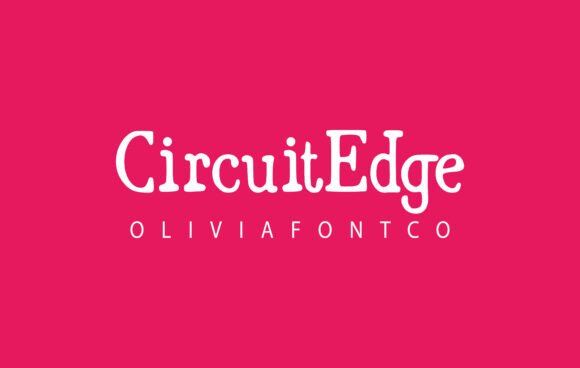
Circuitedge Font: Elevate Your Creative Projects with a Romantic Touch
In the world of typography, fonts play a crucial role in conveying the tone and personality of a brand or creative project. Among the numerous fonts available, Circuitedge font stands out as a unique and captivating choice. This authentic handwritten font, infused with a romantic touch, has been expertly designed to become a true favorite among designers and creative enthusiasts. In this article, we’ll explore the features and benefits of Circuitedge font, and how it can elevate your creative ideas to new heights.
What is Circuitedge Font?
Circuitedge font is a carefully crafted handwritten font that exudes a sense of romance and elegance. Its authentic and organic feel makes it perfect for a wide range of creative projects, from magazine headlines and social media graphics to branding, wedding invitations, and more. The font’s unique character and charm are sure to capture the attention of your audience and leave a lasting impression.
Key Features of Circuitedge Font
- Legibility: Circuitedge font is designed to be highly legible, making it suitable for both title and body text. Its clear and readable design ensures that your message is conveyed effectively, regardless of the medium.
- Romantic Touch: The font’s romantic touch adds a touch of elegance and sophistication to your creative projects. Its whimsical and organic feel makes it perfect for projects that require a personal and emotional connection.
- Versatility: Circuitedge font is incredibly versatile and can be used for a wide range of creative projects, including magazine headlines, social media graphics, branding, wedding invitations, cards, and more.
- Authentic Handwritten Feel: The font’s authentic handwritten feel gives it a unique and personal touch. Its imperfections and quirks make it feel more human and relatable.
Benefits of Using Circuitedge Font
Using Circuitedge font in your creative projects offers numerous benefits. Here are a few:
- Stand Out from the Crowd: Circuitedge font’s unique character and charm will help your creative projects stand out from the crowd. Its romantic touch and authentic handwritten feel make it a refreshing change from traditional fonts.
- Emotional Connection: The font’s romantic touch and whimsical feel help create an emotional connection with your audience. This is particularly useful for projects that require a personal and emotional connection, such as wedding invitations and cards.
- Time-Saving: Circuitedge font is highly legible and versatile, making it a time-saving solution for designers and creative enthusiasts. Its clear and readable design eliminates the need for extensive editing and formatting.
- Elevate Your Brand: Using Circuitedge font in your branding materials will help elevate your brand’s personality and tone. Its unique character and charm will help you establish a strong brand identity that resonates with your audience.
How to Use Circuitedge Font in Your Creative Projects
Using Circuitedge font in your creative projects is easy and straightforward. Here are a few tips to get you started:
- Pair it with Other Fonts: Circuitedge font pairs well with other fonts, especially those with a modern and clean design. Experiment with different font combinations to find the perfect match for your project.
- Use it for Headlines and Titles: Circuitedge font is perfect for headlines and titles. Its romantic touch and authentic handwritten feel make it a great choice for grabbing attention and conveying emotion.
- Experiment with Colors: Circuitedge font looks great in a variety of colors. Experiment with different colors and shades to find the perfect match for your project.
- Use it for Body Text: Circuitedge font is highly legible, making it suitable for body text. Use it for paragraphs and descriptions to add a personal touch to your content.
In conclusion, Circuitedge font is a unique and captivating choice for creative projects. Its romantic touch, authentic handwritten feel, and high legibility make it perfect for a wide range of applications. Whether you’re a designer, entrepreneur, or creative enthusiast, Circuitedge font is sure to elevate your creative ideas to new heights. So why wait? Try Circuitedge font today and experience the power of beautiful typography.
- What is Circuitedge font? Circuitedge font is an authentic handwritten font with a romantic touch. It’s expertly designed to be a true favorite among designers and creative enthusiasts.
- Is Circuitedge font legible? Yes, Circuitedge font is highly legible and suitable for both title and body text.
- What can I use Circuitedge font for? Circuitedge font can be used for a wide range of creative projects, including magazine headlines, social media graphics, branding, wedding invitations, cards, and more.